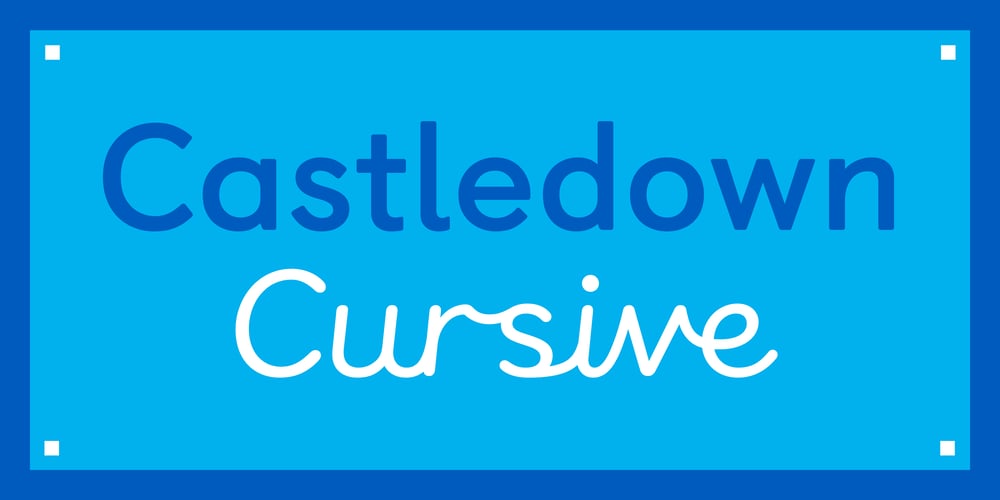
Castledown Cursive
Castledown Cursive font
Castledown Cursive Font Family was designed by Colophon Foundry and published by Colophon Foundry. Castledown Cursive contains 1 styles and family package options. From 2012 — 2014 Colophon Foundry collaborated closely with Castledown Primary School in Hastings, UK. The project began as a commission for a custom typeface for the school but soon developed into an initiative to develop and unify typography within primary education.Castledown’s Headteacher, Mr. Small, was frustrated with the disparate fonts used by schools to teach children letterform recognition whilst learning reading and handwriting. By encapsulating all requirements into a common DNA to be used throughout the type family, we were able to build a typeface that had the key considerations of readability, differentiation of letters (such as the lowercase ‘l’ and uppercase ‘I’), and an understanding of how writing is taught in schools built into its genetic makeup.The type family’s accolades include a nomination for Design of the Year 2014 at the Design Museum and a Premier Award at the International Society of Typographic Designers in 2014.